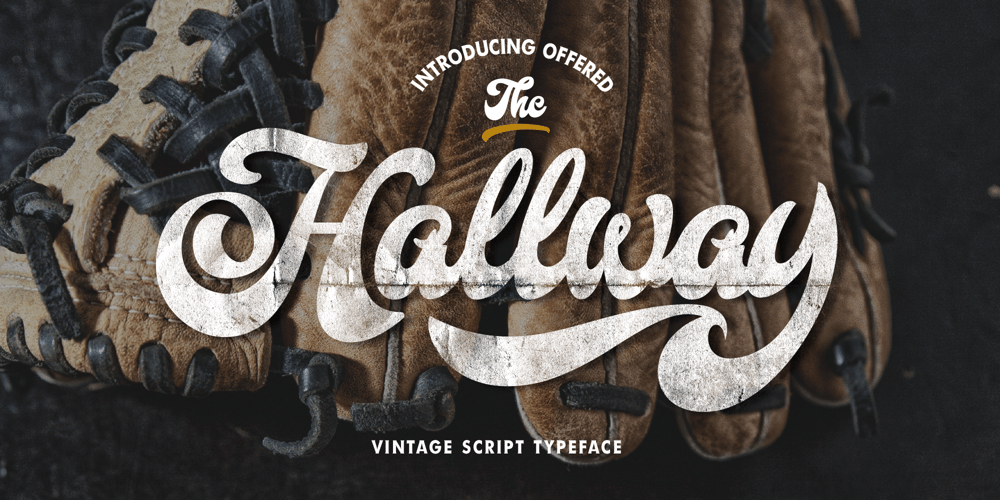
Fd Hallway Font Family was designed by Ramandhani Nugraha and published by Fortunes Co. Fd Hallway contains 3 styles and family package options. Hallway inspired from vintage script combined with modern style, suite for adventure or classic feeling sport, sign painting, labeling, suitable for logo, product names packages, labels, old fashioned coffee shops, bars and everything with specific characteristics of past times.